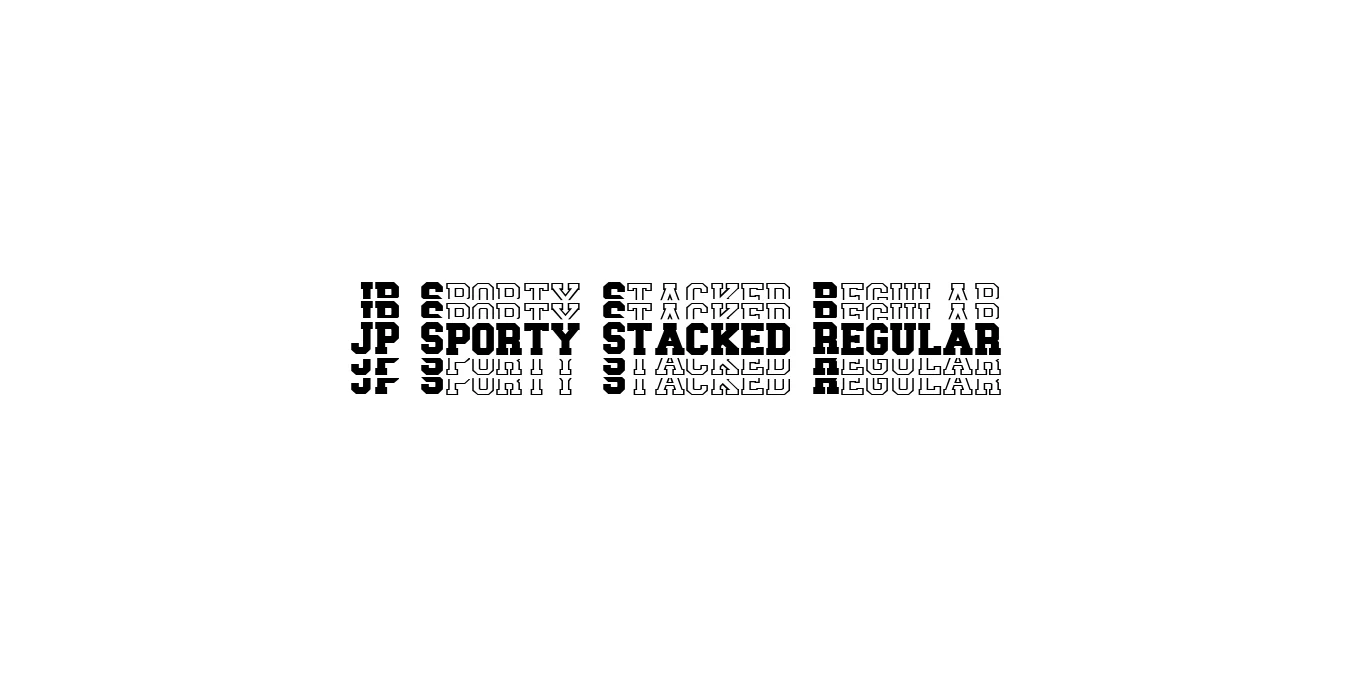
JP Sporty Stacked Regular
Designed by JP Design (Junior de Paulo)
| Font Name | JP Sporty Stacked |
| Category | Display / Sports |
| Designer | JP Design (Junior de Paulo) |
JP Sporty Stacked Regular is a high-octane display typeface meticulously crafted to embody the spirit of competitive athletics and modern streetwear. The font stands out with its signature stacked visual effect, which creates an immediate sense of three-dimensional depth and rhythmic motion. Its bold, blocky architecture is balanced by precise geometric cuts, ensuring that each character maintains its structural integrity while delivering a powerful aesthetic punch.
This typeface is deeply rooted in the traditions of varsity lettering and collegiate sports branding, but it incorporates contemporary stylistic flourishes that make it suitable for high-end digital media. Whether it is being utilized for professional league logos or high-impact merchandise, JP Sporty Stacked Regular provides a professional-grade solution for designers seeking to communicate strength, speed, and agility in their visual communication projects.
JP Sporty Stacked Regular Best Uses
Excellent for creating powerful team identities and league logos.
Ideal for jersey numbers, collegiate hoodies, and athletic streetwear.
Highly effective for event flyers, gym advertisements, and tournament announcements.
Perfect for sports-themed social media banners and high-energy YouTube thumbnails.